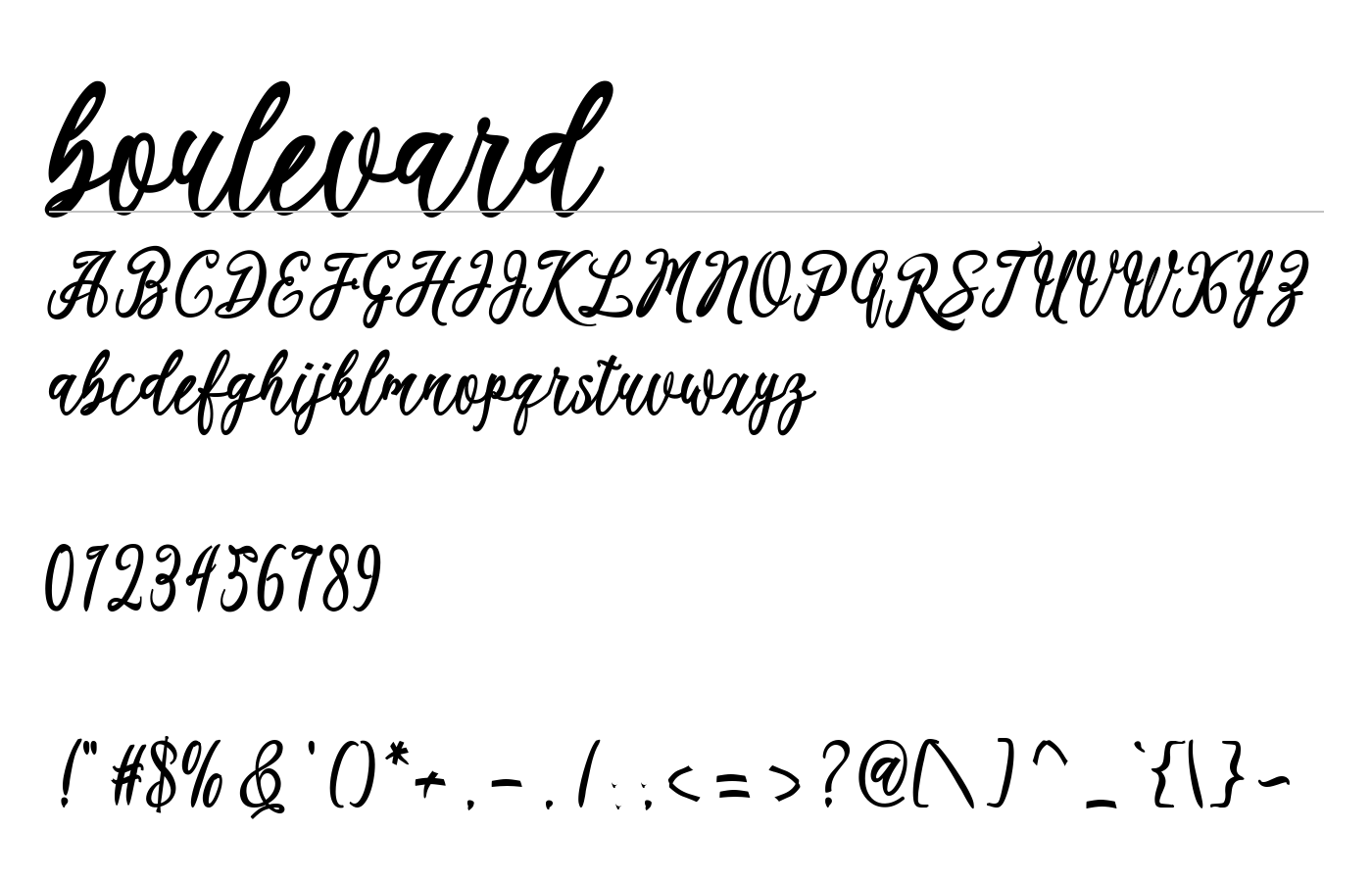
Boulevard is a lively script font with a smooth, flowing style that gives text an elegant and personal touch. Its medium weight and moderate contrast create a friendly yet refined look, ideal for branding, invitations, and any design that seeks a warm, vintage-inspired charm. This font works beautifully in headlines and logos where a classic, handwritten feel is desired.
boulevard Font
About boulevard Font
| Designer | August Calligraphy |